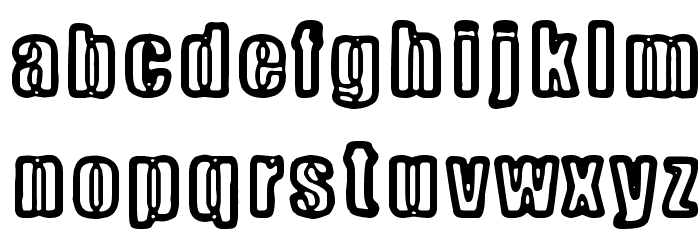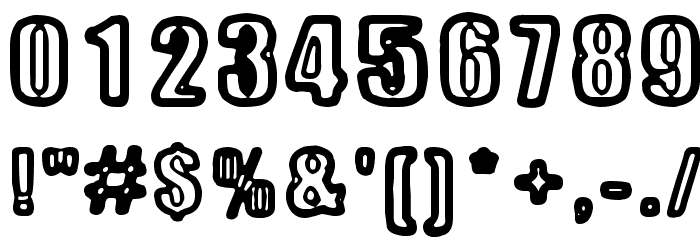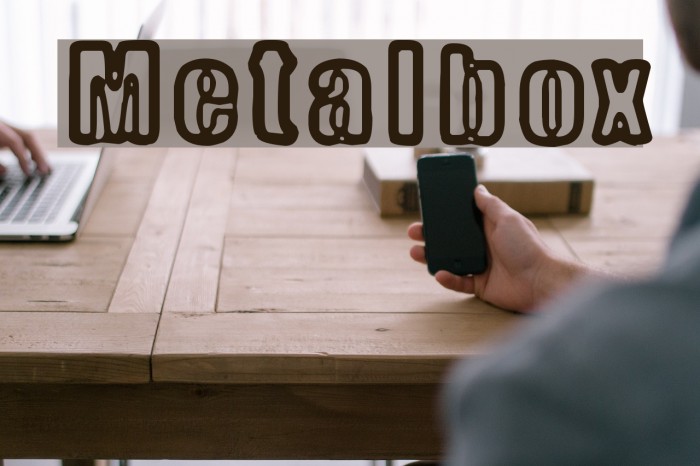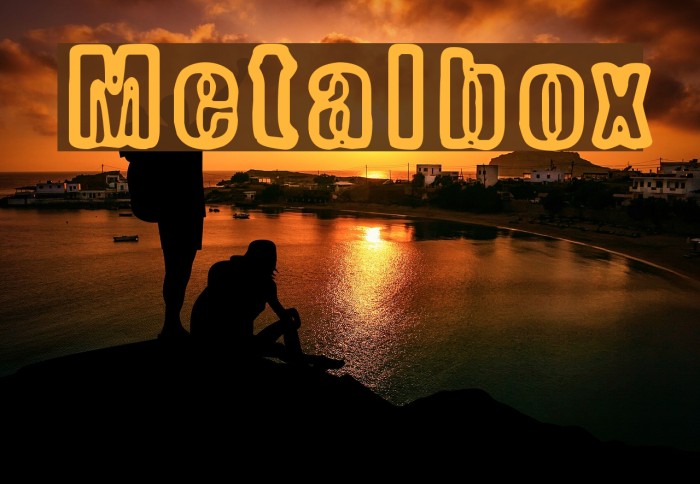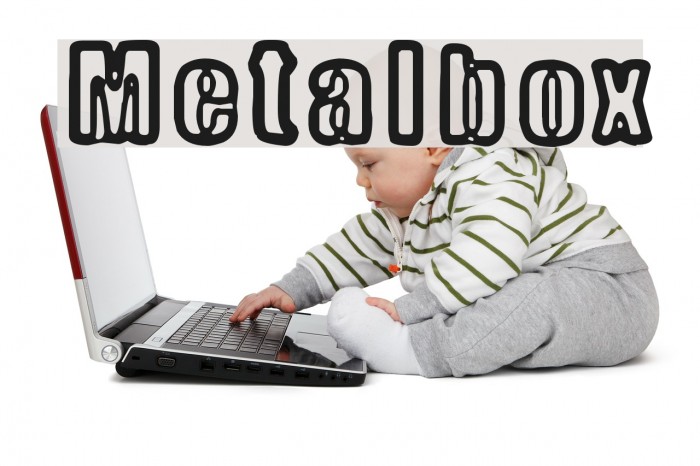
Metalbox Font
This font features a bold, outlined style with a playful and dynamic appearance. The characters are uppercase and lowercase letters, numbers, and a variety of special symbols. Each character is designed with a thick outline, creating a hollow effect that adds depth and dimension. The font's style is reminiscent of retro or vintage signage, making it ideal for projects that require a bold statement. The spacing between characters is consistent, ensuring readability while maintaining its unique aesthetic. The overall design is eye-catching and suitable for creative and artistic applications.
A bold, outlined font with a retro, playful style.
- Proposed Projects: Ideal for posters, logos, headlines, and creative design projects.
- Overall Style: Vintage